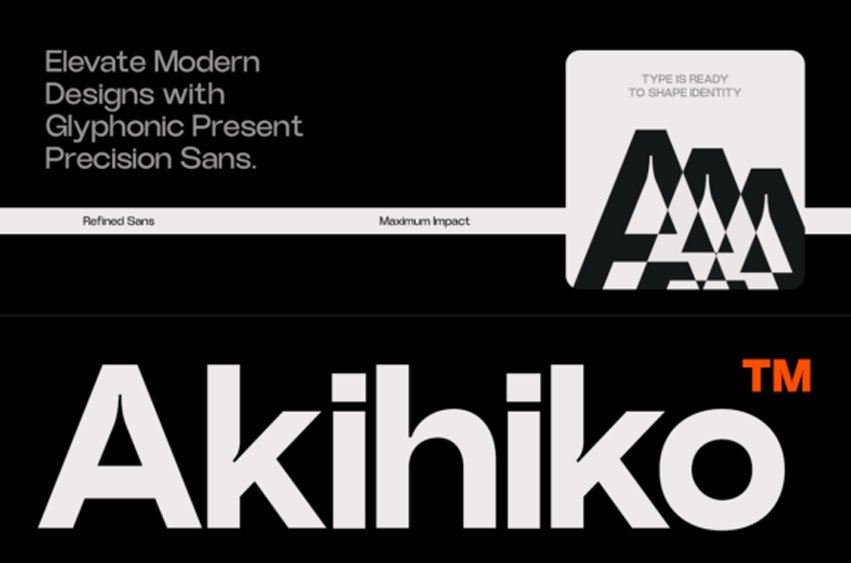
Akihiko Font
Akihiko Font is a contemporary sans serif typeface designed with refined geometry and precise modern structure. Built to deliver clarity and control, Akihiko presents a clean and confident typographic voice suited for high-end visual communication. Its design focuses on clarity and alignment, making it ideal for branding systems, editorial layouts, modern interfaces, and corporate design.
Whether used for impactful headlines, clean layouts, or modern brand identities, Akihiko brings precision, elegance, and maximum visual impact to your typography.